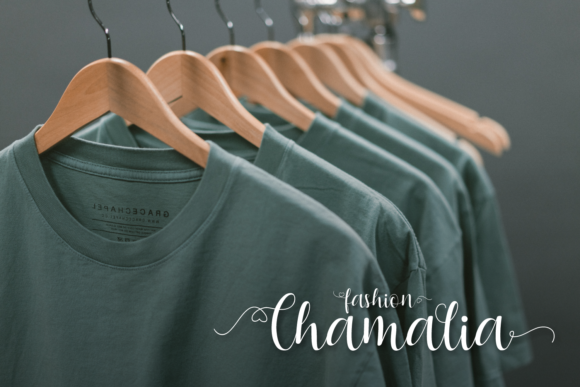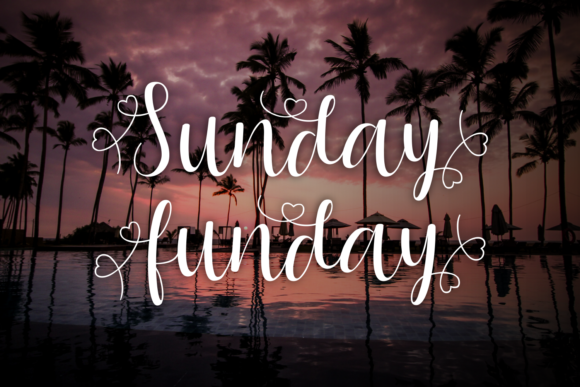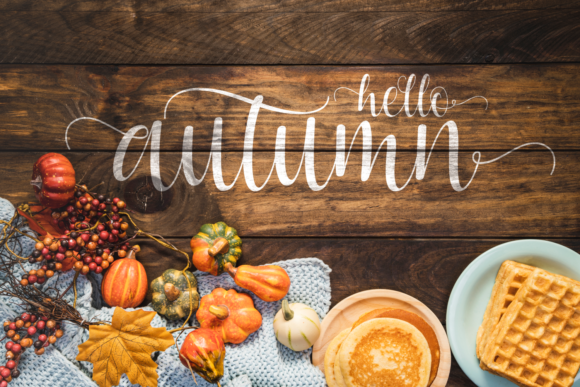
Discover the Charm of Chashina Font: Elevate Your Designs with Modern Simplicity
In the world of typography, fonts play a crucial role in conveying messages, expressing emotions, and adding personality to designs. For designers and crafters seeking a unique and captivating font, Chashina Font is an exceptional choice. This beautifully crafted handwritten font is designed to bring a touch of modern simplicity to any project, making it an ideal selection for those who appreciate elegance and sophistication.
The Beauty of Chashina Font
Chashina Font is an incredibly beautiful and sweet handwritten font that boasts a distinctive charm. Its modern simplicity is both captivating and versatile, allowing it to seamlessly integrate into various design projects. Whether you’re working on a branding campaign, crafting a website, or creating engaging social media content, Chashina Font is sure to make a lasting impression.
One of the standout features of Chashina Font is its unique blend of elegance and playfulness. The font’s handwritten style gives it a personal and approachable feel, making it perfect for designs that require a touch of warmth and personality. At the same time, its modern simplicity ensures that it remains clean and sophisticated, suitable for a wide range of applications.
Why Choose Chashina Font?
So, what makes Chashina Font an attractive choice for designers and crafters? Here are just a few reasons why this font stands out:
- Unique Style: Chashina Font offers a distinctive style that sets it apart from more traditional fonts. Its modern simplicity and handwritten charm make it an excellent choice for those seeking to add a personal touch to their designs.
- Versatility: This font is incredibly versatile, suitable for a wide range of design projects, from branding and advertising to web design and social media content.
- Elegance and Sophistication: Chashina Font exudes elegance and sophistication, making it perfect for designs that require a touch of refinement and luxury.
- Easy to Read: Despite its unique style, Chashina Font remains easy to read, ensuring that your message is communicated clearly and effectively.
Using Chashina Font in Your Designs
Chashina Font is incredibly easy to use, making it accessible to designers and crafters of all skill levels. Here are a few tips for incorporating this beautiful font into your projects:
- Pair it with Other Fonts: Experiment with pairing Chashina Font with other fonts to create visually appealing combinations. Its modern simplicity makes it an excellent choice for pairing with bold or serif fonts.
- Use it for Headings and Titles: Chashina Font is perfect for headings and titles, where its unique style can make a lasting impression. Use it to add a touch of elegance and sophistication to your designs.
- Add a Personal Touch: Take advantage of Chashina Font’s handwritten style to add a personal touch to your designs. Use it for quotes, testimonials, or other elements that require a touch of warmth and personality.
In conclusion, Chashina Font is an exceptional choice for designers and crafters seeking to elevate their designs with modern simplicity. Its unique blend of elegance and playfulness makes it a versatile font suitable for a wide range of applications. Whether you’re working on a branding campaign, crafting a website, or creating engaging social media content, Chashina Font is sure to make a lasting impression. So why not give it a try and discover the charm of Chashina Font for yourself?
With its beautiful handwritten style and modern simplicity, Chashina Font is an excellent addition to any design project. Get inspired by its unique charm and take your designs to the next level with this incredible font.